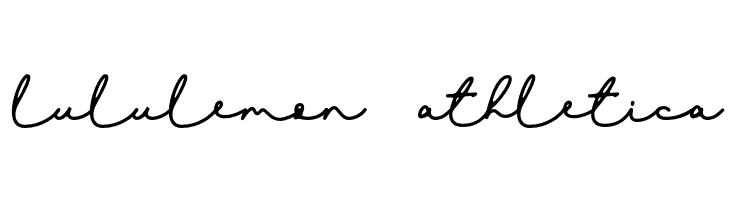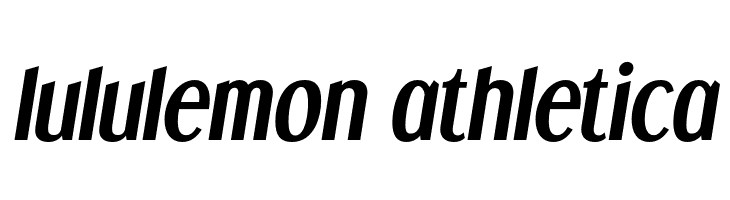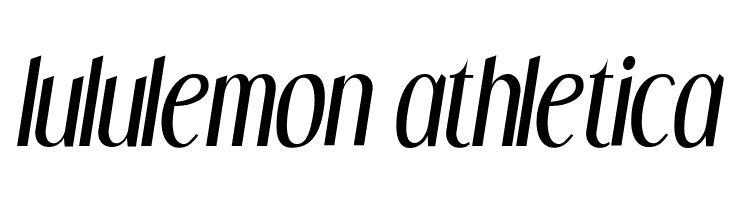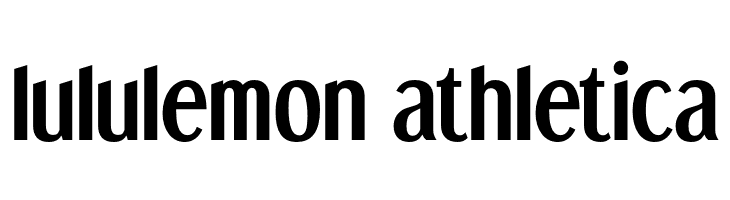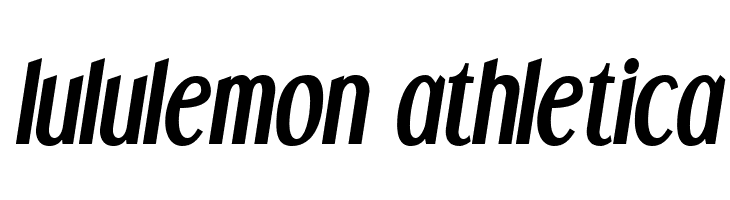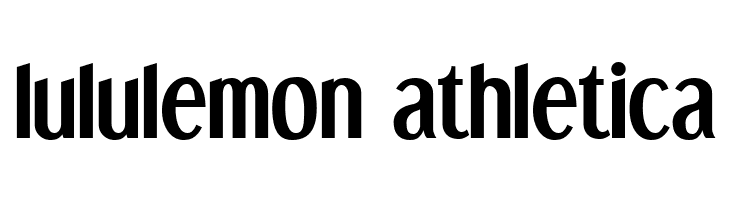
A playful, whimsical font with smooth, flowing curves and slightly irregular letterforms.
A graceful and elegant script font with flowing, cursive strokes.
An elegant script font with flowing, cursive strokes and graceful curves.
A casual, handwritten font with fluid, connected strokes and a playful yet sophisticated style.
A casual, elegant handwritten font with fluid, connected letterforms and dynamic rhythm.
A modern, clean sans-serif font with a balanced and professional appearance.
A modern sans-serif font with a clean, balanced design and versatile character set.
A bold, high-contrast font with a modern yet classic style.
A bold, modern font with sharp edges and high contrast, perfect for headlines.